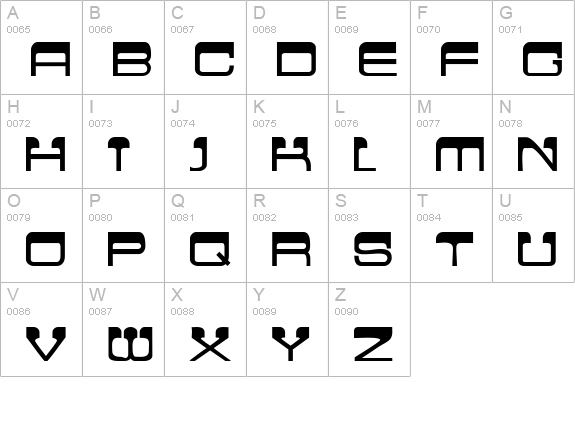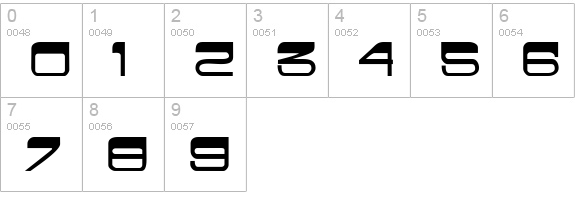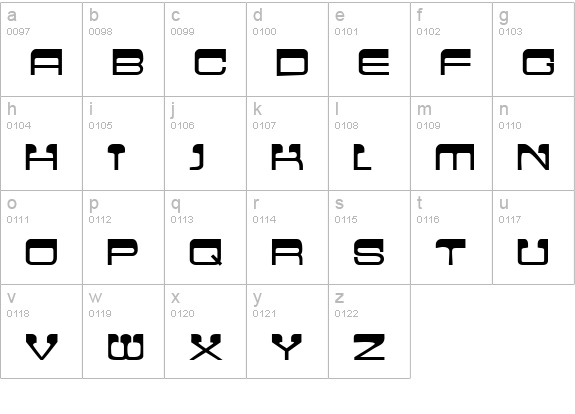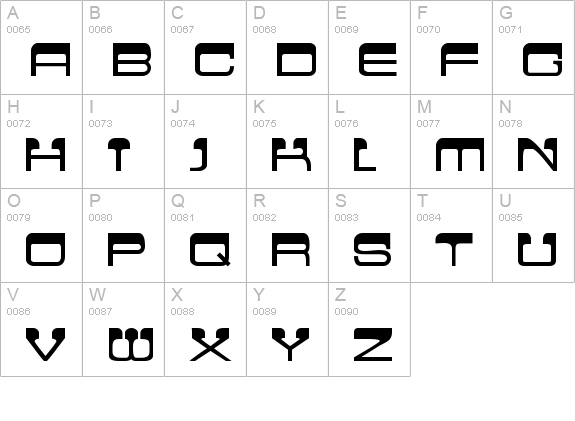
CrewCutCaps Bold Font Details
CrewCutCaps Bold is a strong, high-contrast variant in the CrewCutCaps typeface family \xE2\x80\x94 well suited to headlines, attention-grabbing titles, and strong calls-to-action.
CrewCutCaps Bold is a modern and stylish font that exudes confidence and professionalism. With its bold and sharp letterforms, this font is perfect for making a bold statement in your designs. The clean lines and geometric shapes of CrewCutCaps Bold make it versatile and suitable for various design projects, from branding to advertising. The best part? CrewCutCaps Bold is available for free download at FontsMarket.com. You can easily add this eye-catching font to your collection and use it in your projects without any cost. Whether you're working on a poster, logo, or website design, CrewCutCaps Bold will make your text stand out and leave a lasting impression on your audience. Download it now and elevate your designs with this sleek and modern typeface.